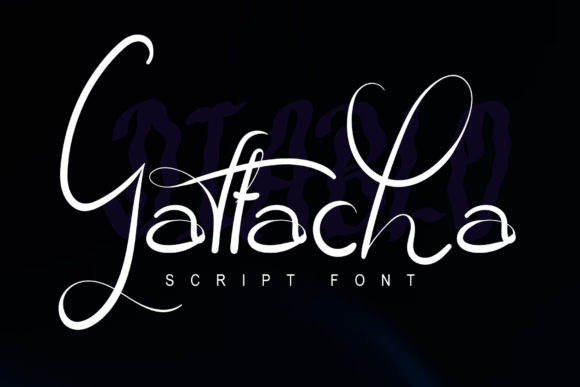
Gattacha Font: The Sweet and Friendly Handwritten Font for Your Creative Projects
Are you a designer, crafter, or DIY enthusiast looking for a font that can add a personal touch to your creative projects? Look no further than Gattacha Font! This sweet and friendly handwritten font is perfect for a wide range of designs, from invitations and greeting cards to logos and branding materials. In this article, we’ll explore the unique features of Gattacha Font and how it can elevate your designs to the next level.
The Unique Style of Gattacha Font
Gattacha Font is a beautifully crafted handwritten font that exudes a sense of warmth and friendliness. Its natural and unique style makes it incredibly fitting to a large pool of designs, from rustic and vintage to modern and playful. The font’s irregularities and imperfections give it a charming, hand-crafted feel that’s perfect for designs that require a personal touch.
One of the standout features of Gattacha Font is its versatility. Whether you’re designing a logo, creating a social media graphic, or crafting a handmade card, this font can adapt to any style or theme. The only limit is your imagination!
Gattacha Font is a dream come true for designers and crafters who want to add a personal touch to their creations. The font’s sweet and friendly style makes it perfect for:
- Invitations and greeting cards: Create beautiful, one-of-a-kind invitations and cards that will make your recipients feel special.
- Logos and branding materials: Use Gattacha Font to create a unique and memorable logo that reflects your brand’s personality.
- Social media graphics: Add a personal touch to your social media graphics and make them stand out from the crowd.
- Handmade crafts: Use Gattacha Font to add a professional touch to your handmade crafts, such as knitted items, jewelry, or ceramics.
Why Choose Gattacha Font?
So why choose Gattacha Font over other fonts? Here are just a few reasons:
- Unique style: Gattacha Font has a one-of-a-kind style that’s sure to make your designs stand out.
- Versatility: This font can be used for a wide range of designs and projects.
- Easy to read: Despite its handwritten style, Gattacha Font is easy to read and understand.
- High-quality: This font is crafted with high-quality techniques to ensure it looks great in any design.
Tips for Using Gattacha Font
Here are a few tips for getting the most out of Gattacha Font:
- Experiment with different colors: Gattacha Font looks great in a variety of colors, from bright and bold to soft and pastel.
- Pair with other fonts: Try pairing Gattacha Font with other fonts to create a unique and interesting contrast.
- Use it sparingly: While Gattacha Font is beautiful, it can be overwhelming if used too much. Use it sparingly to create a focal point in your design.
In conclusion, Gattacha Font is a sweet and friendly handwritten font that’s perfect for designers, crafters, and DIY enthusiasts. Its unique style and versatility make it incredibly fitting to a large pool of designs, from rustic and vintage to modern and playful. With Gattacha Font, the only limit is your imagination! So why not give it a try and see what amazing creations you can come up with?